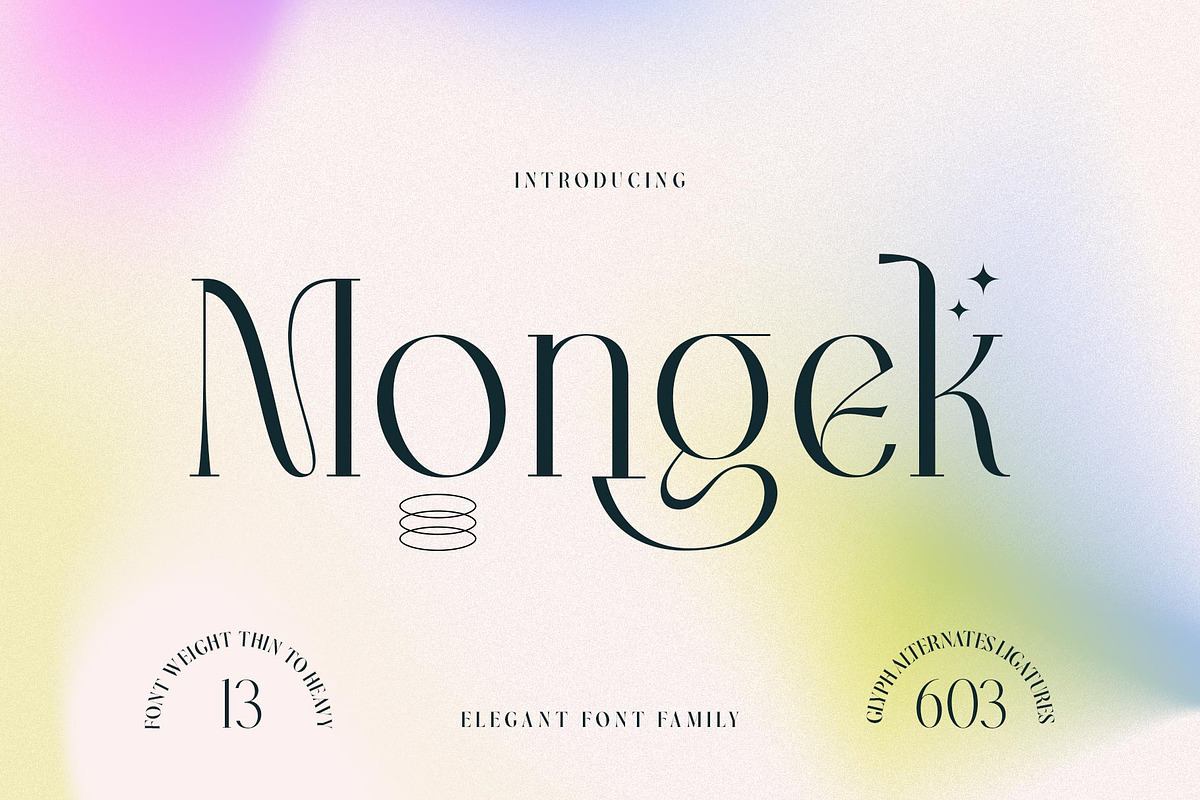
Mongek Typeface Free Download is a bold and artistic serif font that combines traditional elegance with a dramatic, high-contrast look. Perfect for luxury branding, editorial headlines, logo design, product packaging, and wedding invitations, Mongek brings a timeless yet distinctive flair to any project.
Its carefully designed curves and sharp serifs create a strong visual presence while maintaining readability. Mongek includes uppercase and lowercase letters, punctuation, multilingual support, and works seamlessly across both Mac and Windows systems.